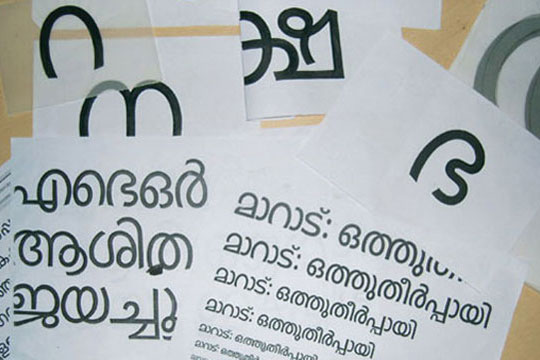
Display Typeface Design in Malayalam
Focus on Letterforms
by
Anand and Prof. G. V. Sreekumar
IDC, IIT Bombay
Introduction
Design of a Display Typeface in Malayalam:
Typeface design in Indian language scripts still suffer from the absence of typefaces, which are tailor cut for specific needs. There is a complete unawareness for the needs of well-designed typefaces meeting both the requirements of digital technology and functional requirements of typefaces.
Kerala state, which boasts a rich literary tradition and most popular publications in the country, also suffer from mediocre design standards when come to typefaces. With a day-by-day growing publication industry and information portals from the state, the demand for typefaces, which meet functional and technical aspects of typography, is more than ever. This project studies the existing typefaces in Malayalam, the script from Kerala in the contexts of usage, visual quality, and technology in the publication industry. These studies identified the need for a display/byline typeface for standard publication needs.
Thus, a typeface family named IDC Vani, consisting of five typefaces in True type and Postscript formats has been designed. A demonstration of various applications of the typeface and a stylebook featuring the guidelines for usage of IDC Vani family also formed part of the final output.